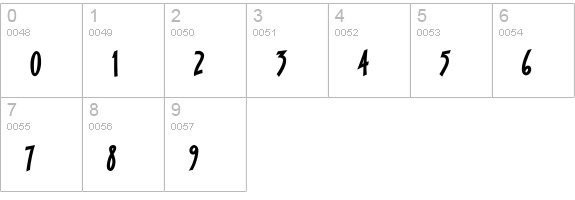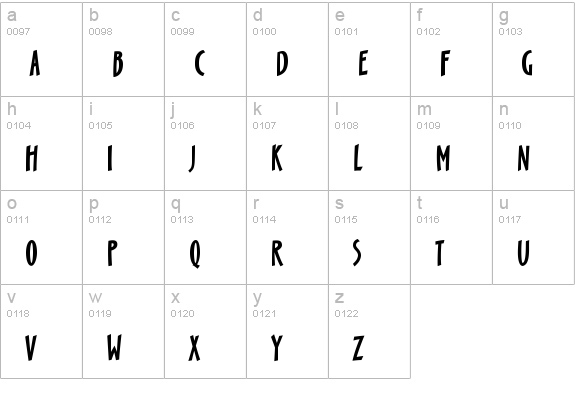
ScampBold Font Details
Introducing ScampBold, a bold and captivating font that is sure to make a statement. With its distinctive and eye-catching design, ScampBold is perfect for adding a touch of personality and flair to any project. Whether you're designing a logo, creating a poster, or crafting a headline, this font will grab attention and leave a lasting impression. ScampBold is not only visually appealing, but it is also incredibly versatile. Its bold and strong letterforms make it easy to read, ensuring your message is communicated clearly and effectively. The unique curves and angles of each character add a touch of sophistication and elegance, making ScampBold suitable for a wide range of applications. What makes ScampBold even more enticing is that it is free. That's right, you can download this incredible font at no cost from FontsMarket.com. We believe that creativity should be accessible to all, and with ScampBold, you have the opportunity to enhance your designs without breaking the bank. Don't miss out on the opportunity to elevate your projects with ScampBold. Download it today from FontsMarket.com and unleash your creativity. Whether you're a professional designer or a hobbyist, this font is sure to become a valuable asset in your collection. So go ahead, explore the possibilities and let ScampBold take your designs to new heights.